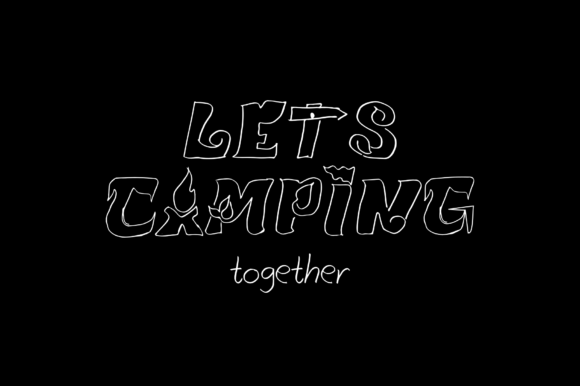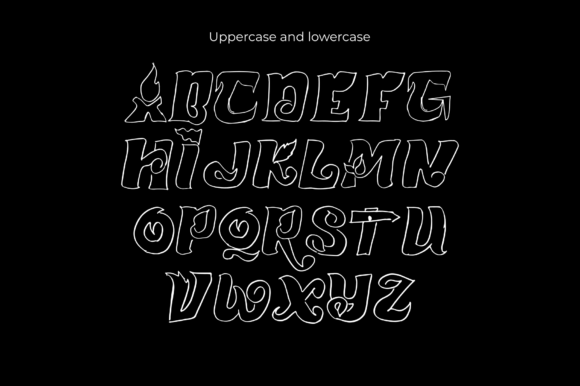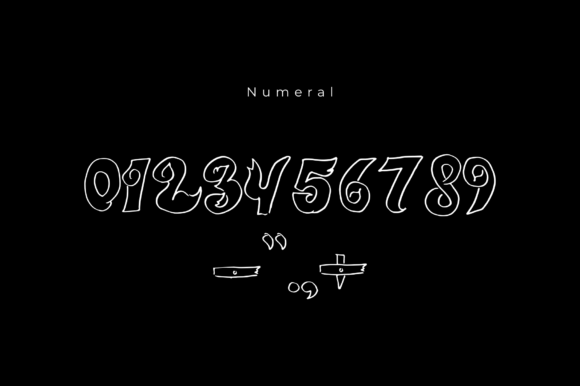
Discover the Joy of Design with Happy Camping Font
Are you a designer, crafter, or DIY enthusiast looking for a unique and cool font to add a touch of personality to your creations? Look no further than Happy Camping Font, a delightful duo font that combines the charm of handwritten and display fonts. In this article, we’ll explore the features and benefits of Happy Camping Font, and how it can elevate your designs, from cartoon-related projects to book covers, posters, and more.
What is Happy Camping Font?
Happy Camping Font is a carefully crafted duo font that consists of two complementary fonts: a beautiful handwritten font and a bold display font. This versatile font combination is perfect for a wide range of design applications, including children’s games, quotes, titles, brand names, book covers, posters, and any other creative project that requires a dash of whimsy and charm.
Key Features of Happy Camping Font
- Unique and Cool Design: Happy Camping Font boasts a distinctive and eye-catching design that sets it apart from other fonts. Its handwritten and display fonts work seamlessly together to create a visually appealing contrast.
- Handwritten and Display Fonts: The duo font combination offers the best of both worlds: the warmth and personality of a handwritten font and the boldness and impact of a display font.
- Cartoon-Related Designs: Happy Camping Font is perfect for cartoon-related projects, such as character designs, comics, and animations.
- Children’s Games and Education: The font’s playful and child-friendly design makes it an excellent choice for children’s games, educational materials, and activity sheets.
- Quotes and Titles: Add a touch of elegance and sophistication to your quotes, titles, and headings with Happy Camping Font’s beautiful handwritten and display fonts.
- Brand Names and Logos: Create a lasting impression with Happy Camping Font’s unique and memorable design, perfect for brand names, logos, and marketing materials.
- Book Covers and Posters: Elevate your book covers, posters, and flyers with Happy Camping Font’s bold and eye-catching design.
Benefits of Using Happy Camping Font
So, why choose Happy Camping Font for your design projects? Here are just a few benefits:
- Easy to Read and Understand: Happy Camping Font is designed to be clear and legible, making it perfect for designs that require easy readability.
- Customizable: The font is highly customizable, allowing you to adjust the size, color, and style to suit your design needs.
- Time-Saving: With Happy Camping Font, you can save time and effort in creating unique and engaging designs, thanks to its pre-designed characters and glyphs.
Tips and Tricks for Using Happy Camping Font
To get the most out of Happy Camping Font, here are some tips and tricks:
- Mix and Match Fonts: Experiment with different font combinations to create a unique and visually appealing design.
- Adjust Font Sizes: Play with font sizes to create visual hierarchy and emphasize important design elements.
- Use Colors Wisely: Select colors that complement the font and enhance the overall design.
- Experiment with Effects: Add texture, gradient, or other effects to give your design an extra boost.
| Author | Darson Art |